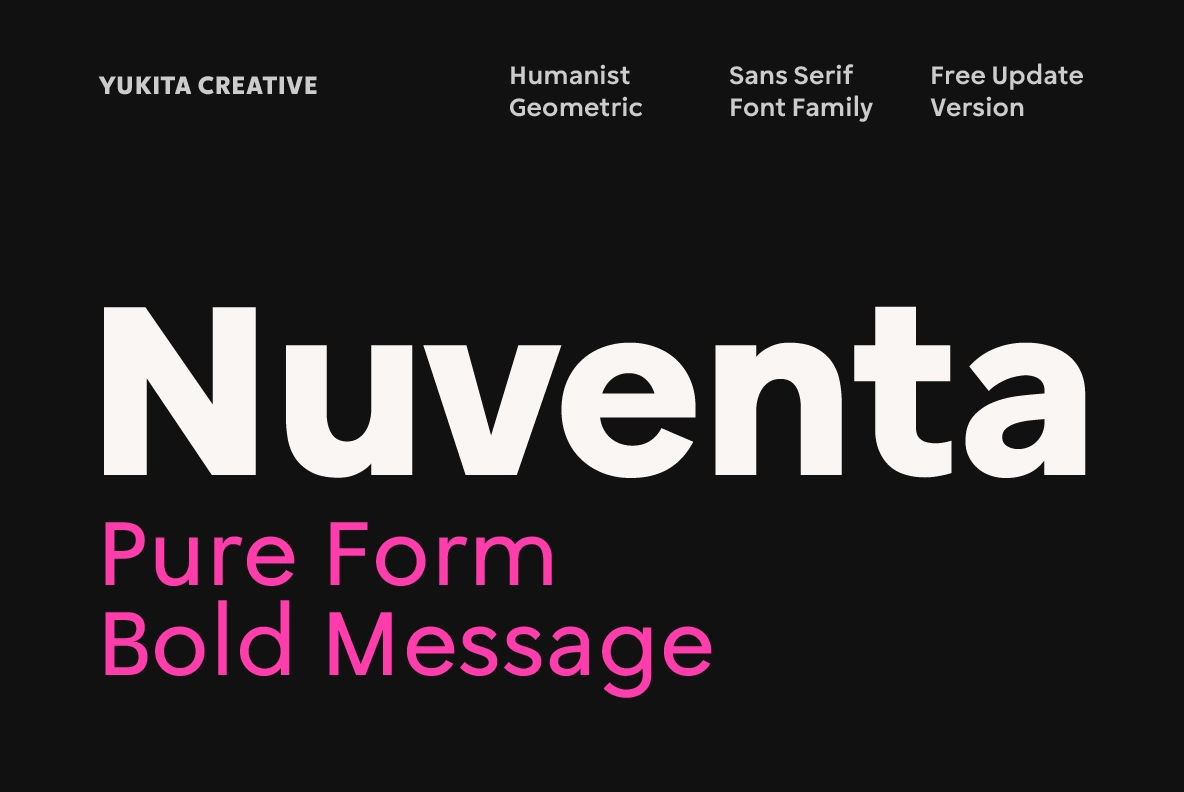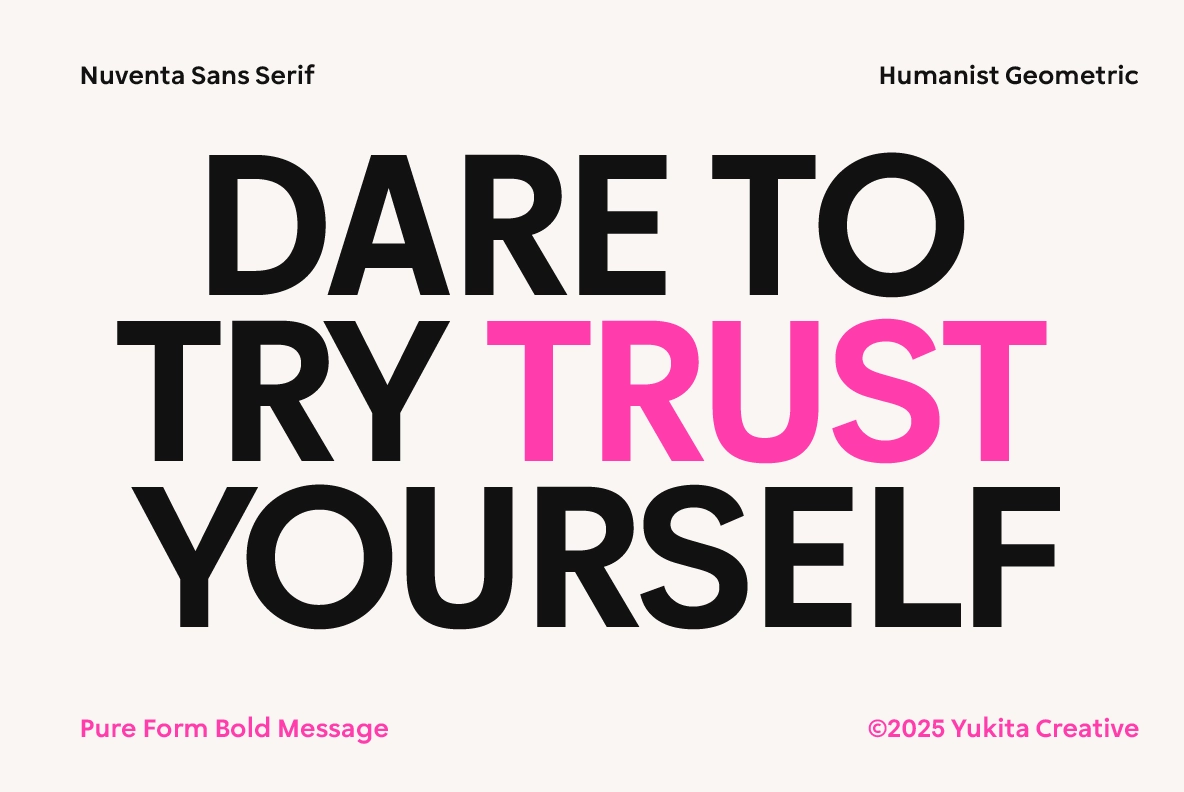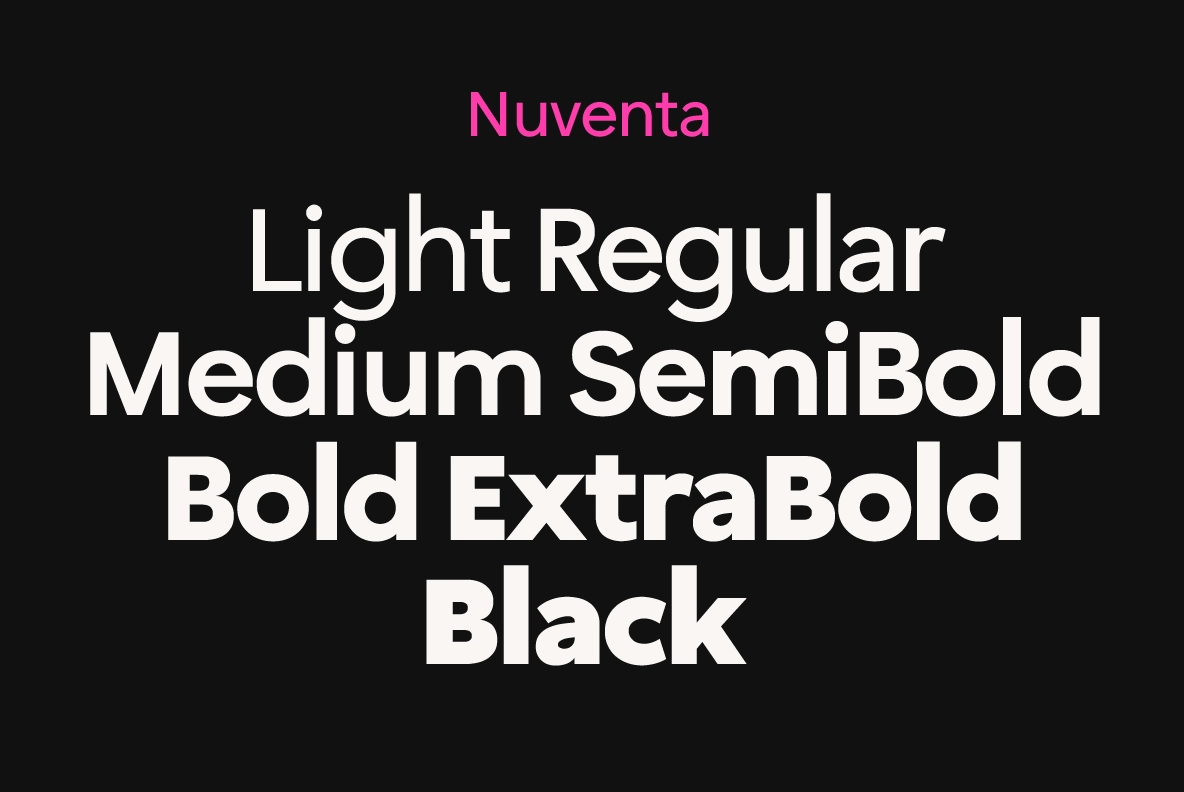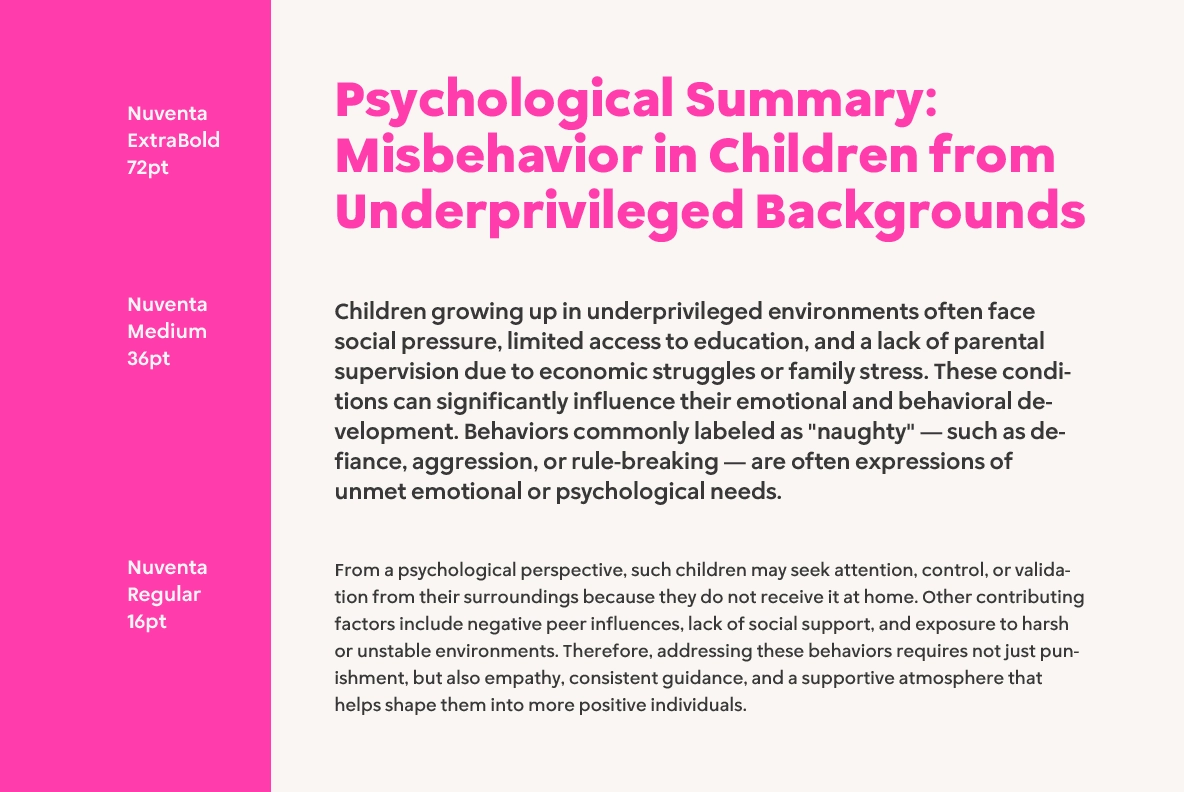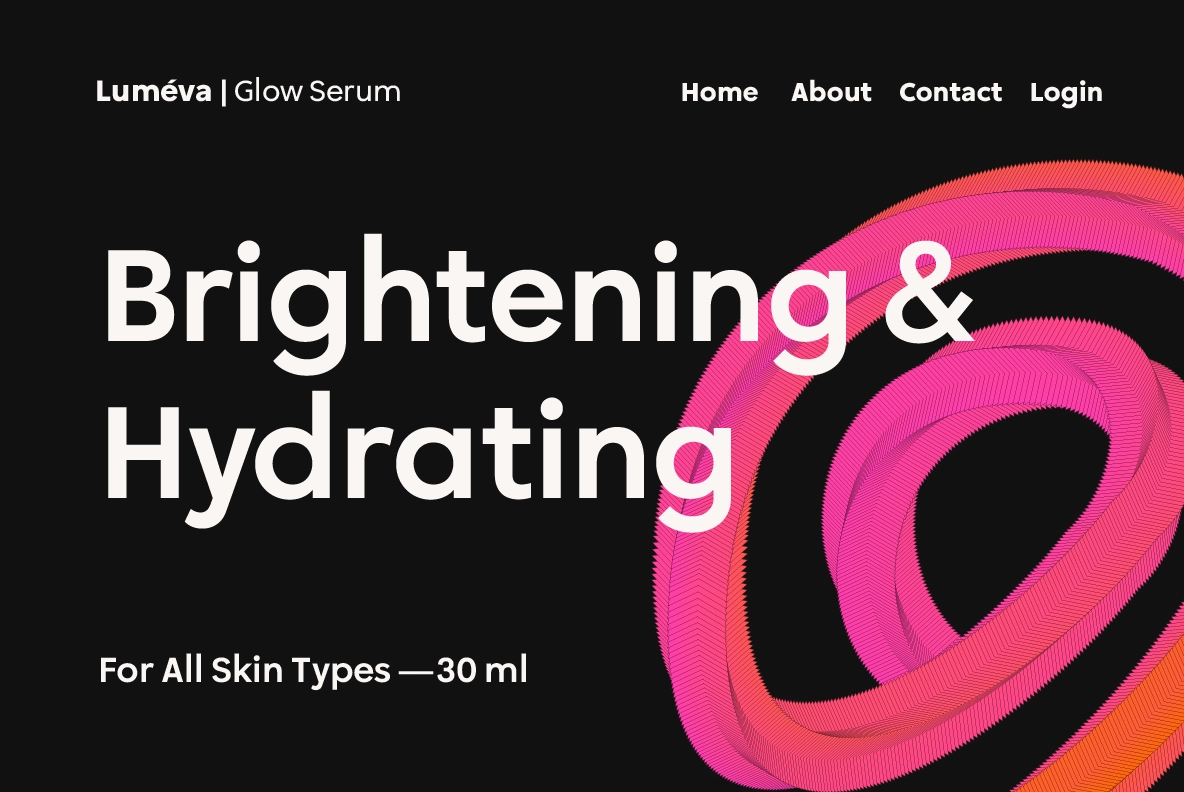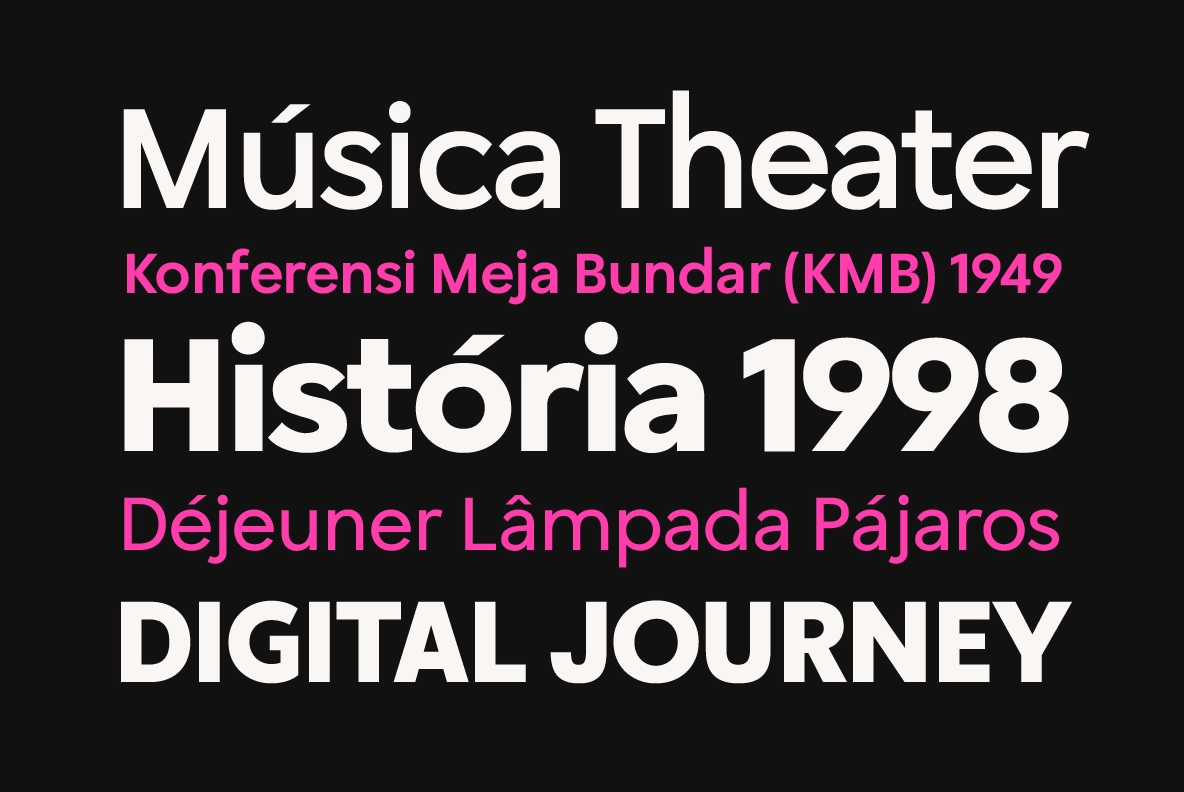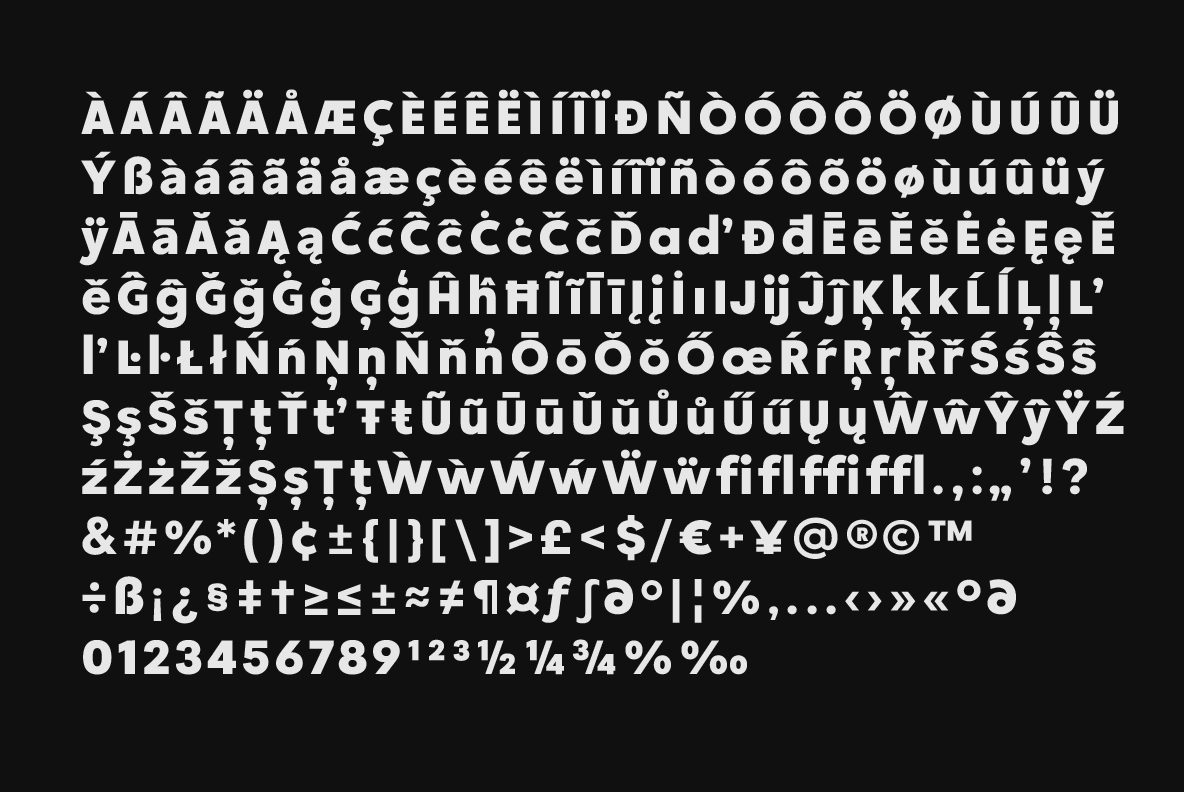
Nuventa - Humanist Sans Serif Font Family
Nuventa is a humanist geometric sans serif font with smooth, balanced letterforms designed for readability and versatility. Its clean structure makes humanist clarity a central feature, allowing text to maintain a professional yet approachable presence across both print and digital projects.
Nuventa includes 7 weights from Light to Black, making it ideal for branding, editorial layouts, advertising, websites, apps, UI design, social media graphics, presentations, headlines, and signage. The font family also supports multilingual text, uppercase and lowercase characters, numerals, punctuation, and a full range of symbols. The Nuventa font ensures bold messages are communicated clearly and elegantly in any context.
- 7 Font Weights: Light - Black
- Full Set of Punctuation & Symbols